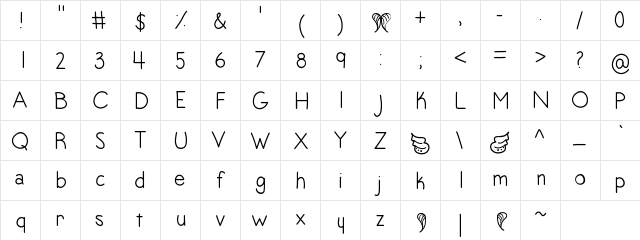
AngelToes Medium Font Preview
AngelToes Medium
Design Context for AngelToes Typeface
AngelToes offers clean, dependable letterforms without strong stylistic allegiance, making it a practical choice for designers who need flexibility.